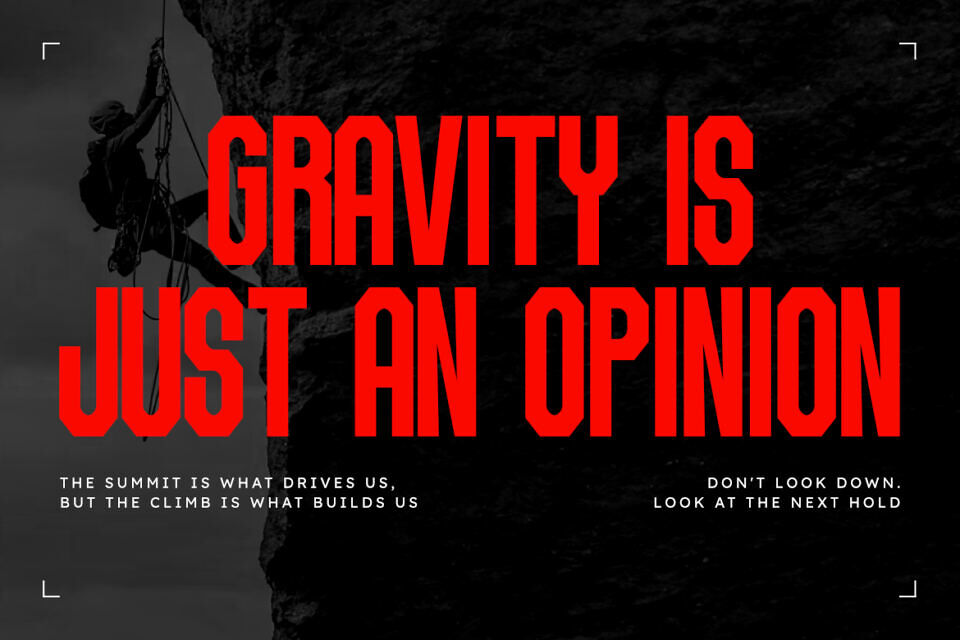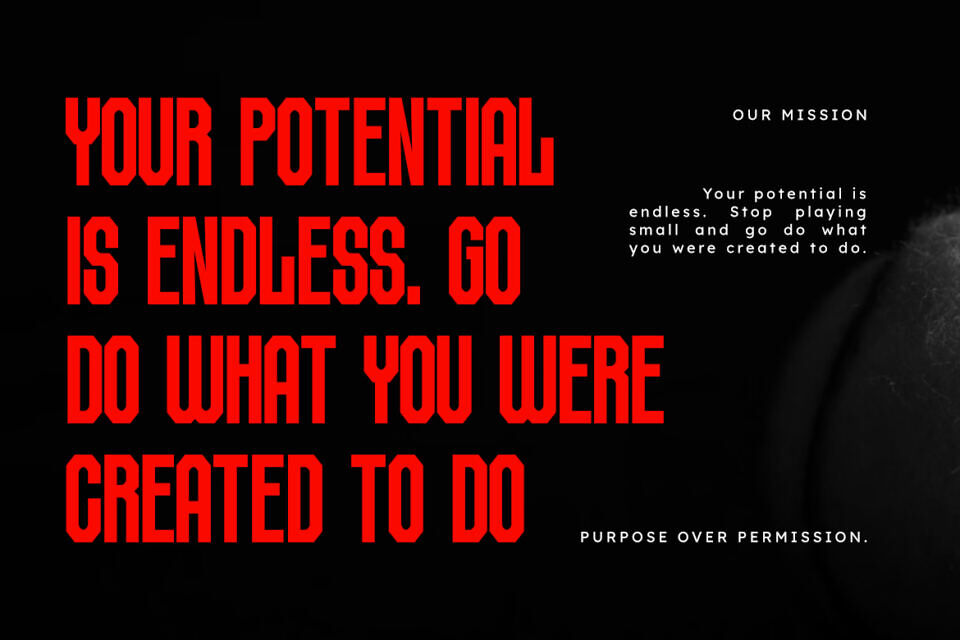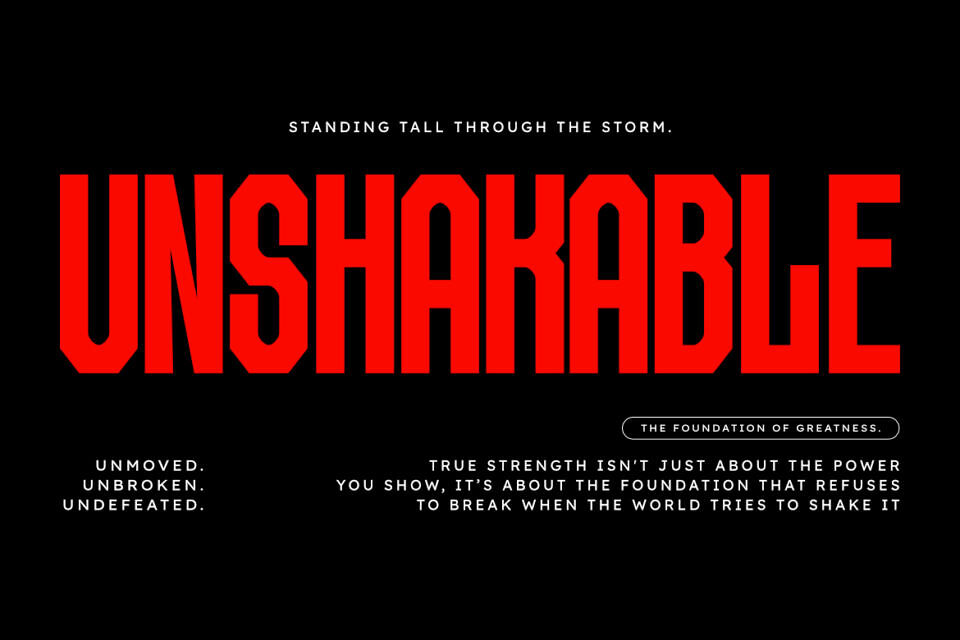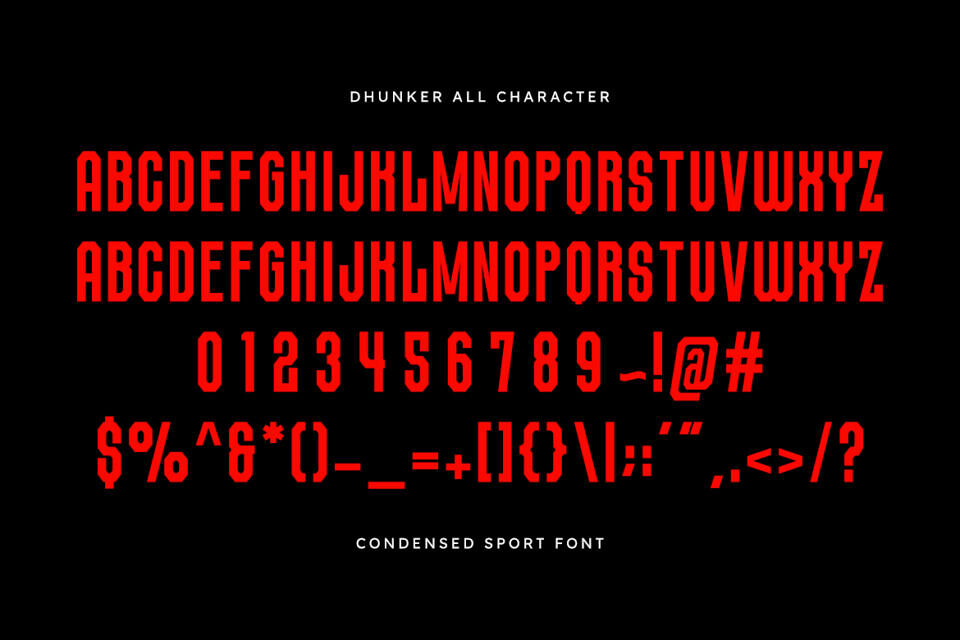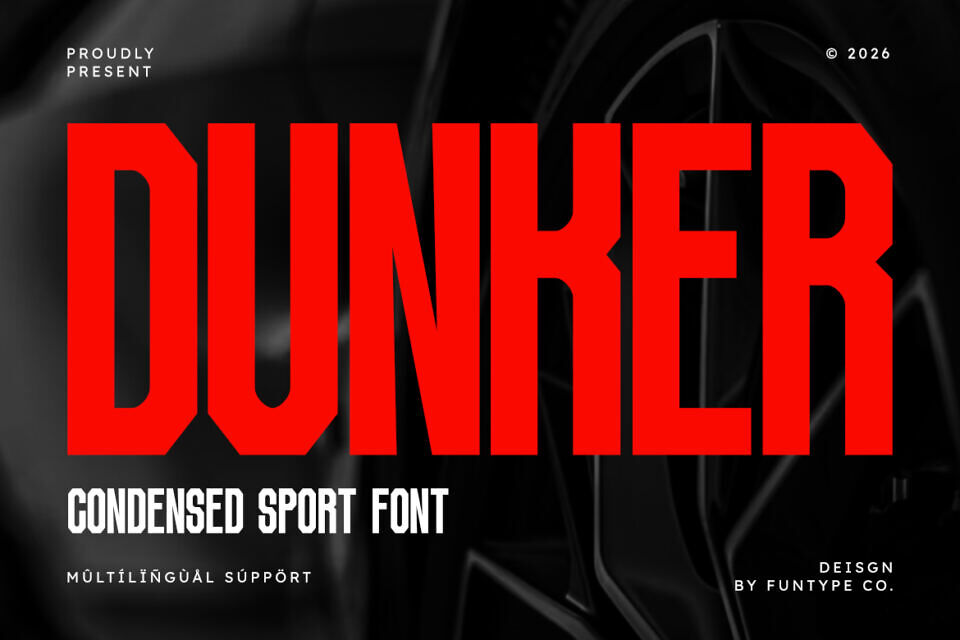
Dunker Font
Dunker is a high-octane condensed sans serif font built for speed, power, and modern athleticism. Featuring sharp, angular cuts and a heavy block-style structure, Dunker is designed to deliver a knockout blow in any display context. It’s the perfect typographic choice for brands that want to convey strength and a competitive edge.
Its tall and compact design makes it incredibly effective for high-impact headlines, ensuring your message stands out even in crowded layouts. From extreme sports branding to industrial automotive design, Dunker provides a professional and aggressive aesthetic that demands attention.